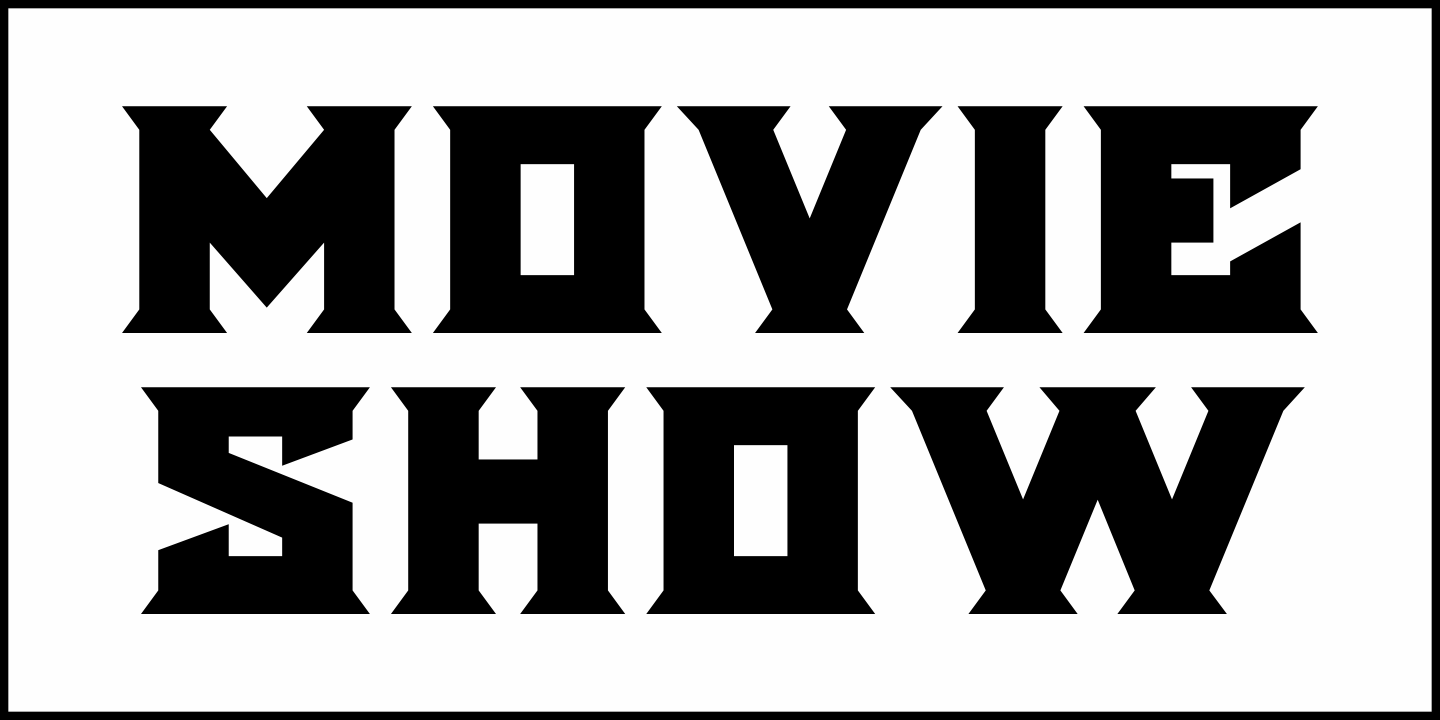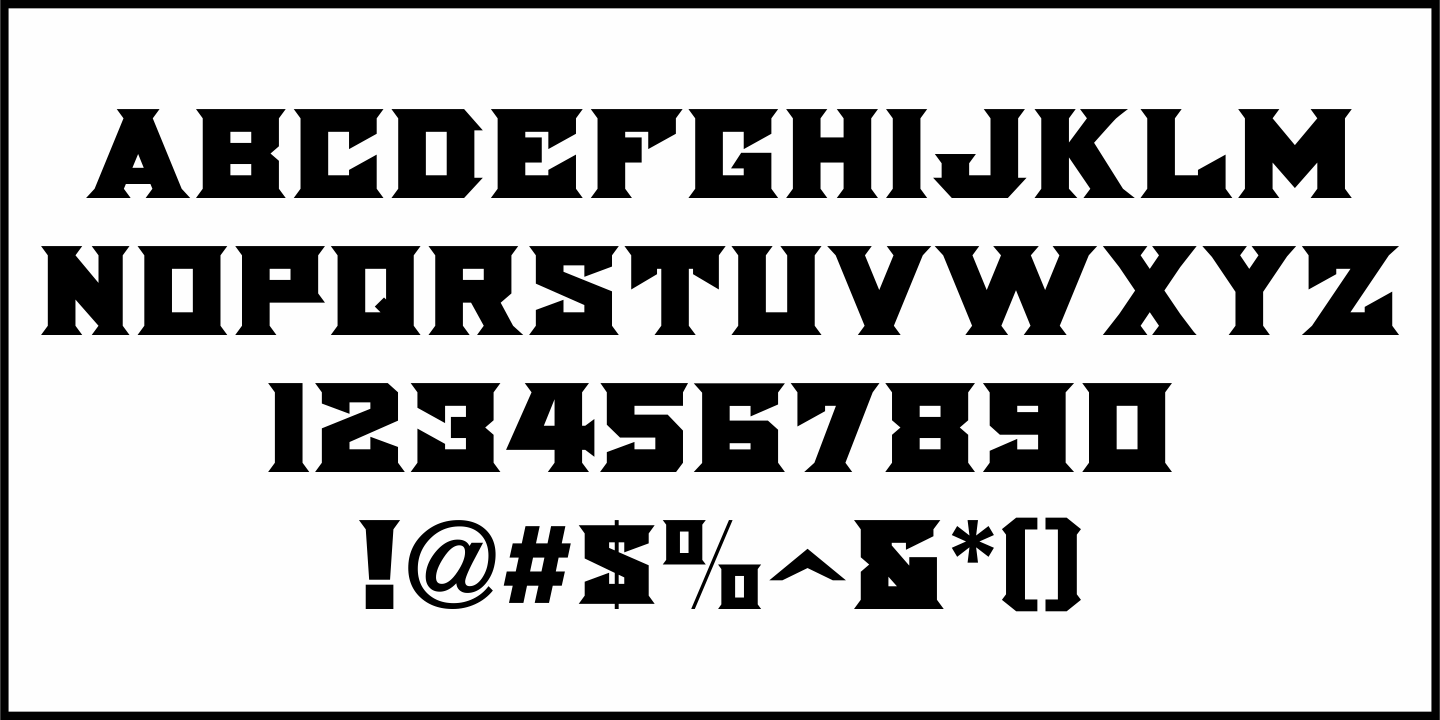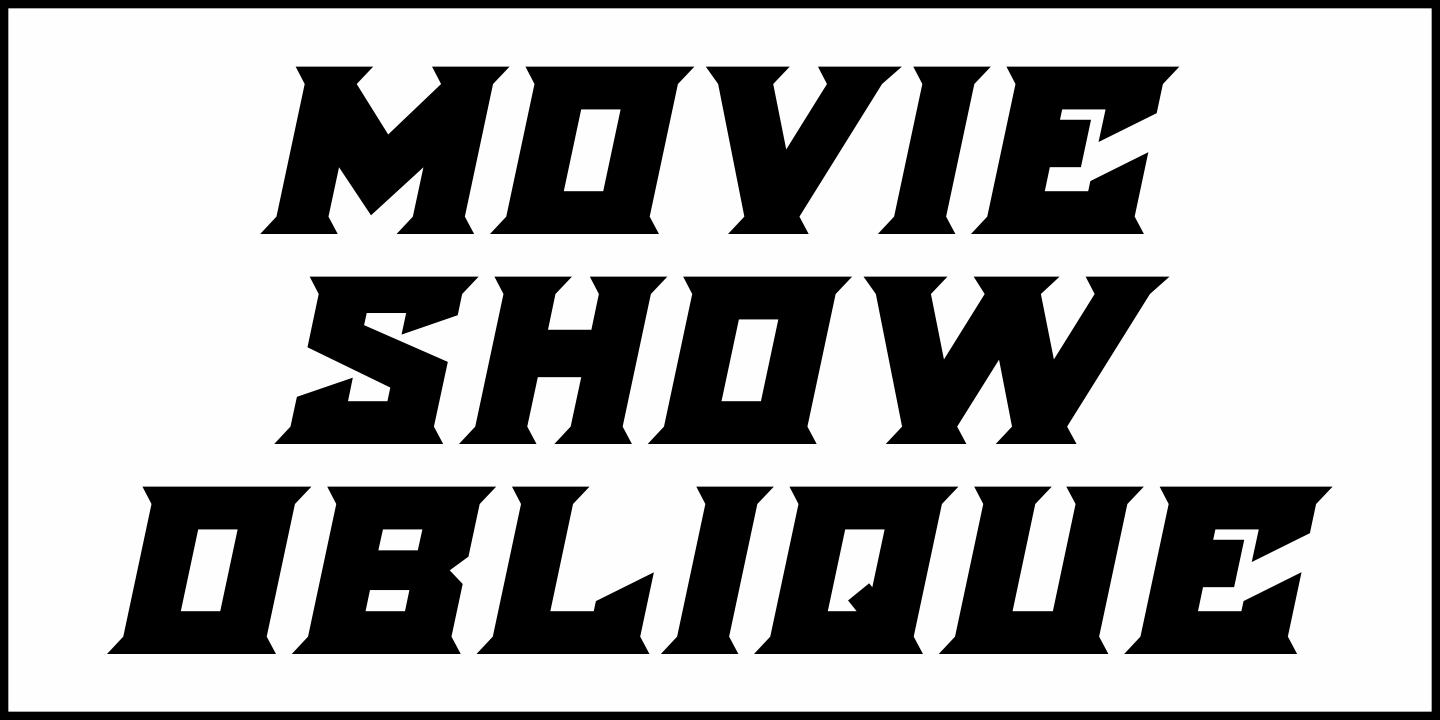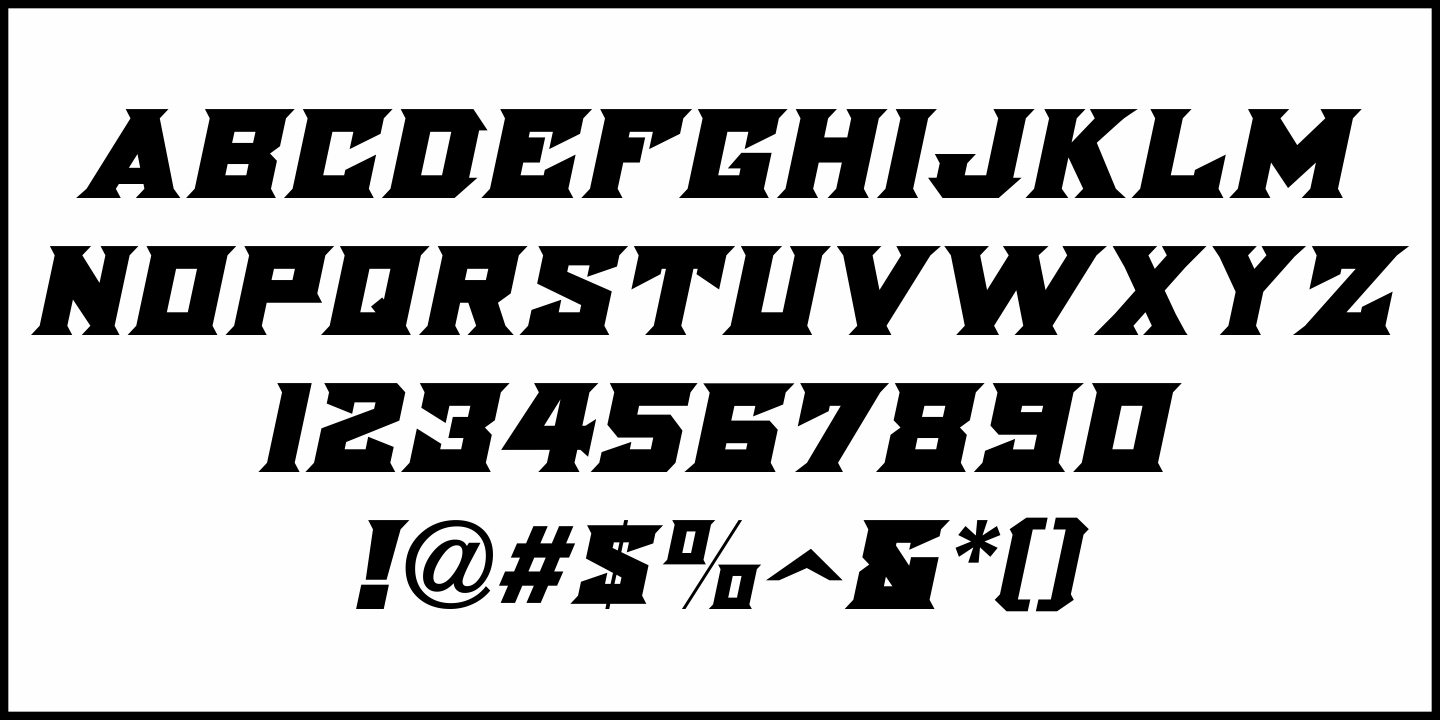
Movie Show
A 1911 movie poster for a film called “How Bella Was Won” from the Edison studios had the name “Edison” hand lettered in a bold, spurred sans serif design.
These few letters became the basis for Movie Show JNL, which is available in both regular and oblique versions.